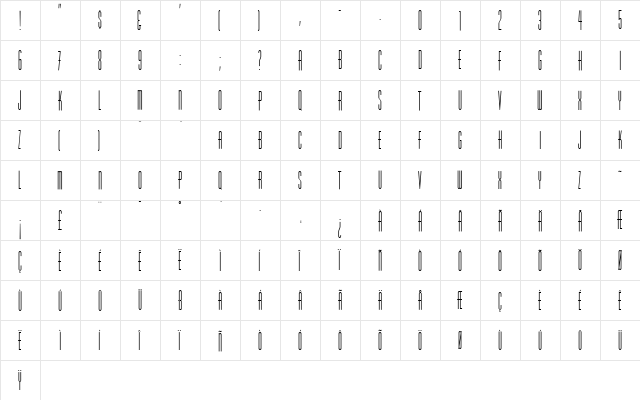
Chrysler-Ultra-Compressed Medium
Design Context for Chrysler-Ultra-Compressed Typeface
Chrysler-Ultra-Compressed is a composed and adaptable typeface that performs quietly and consistently across a wide range of design contexts.